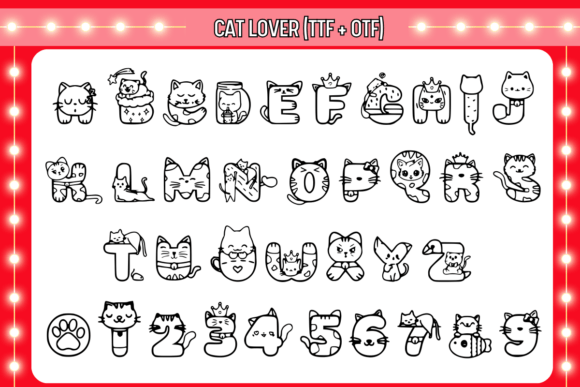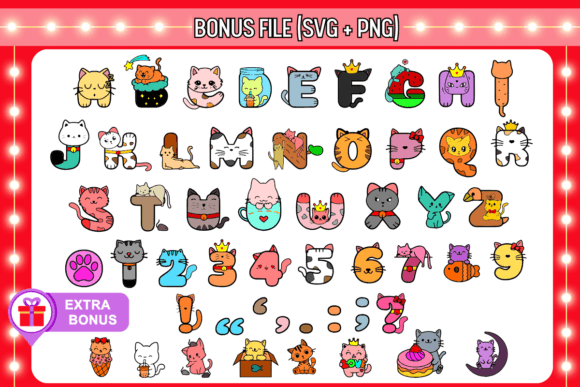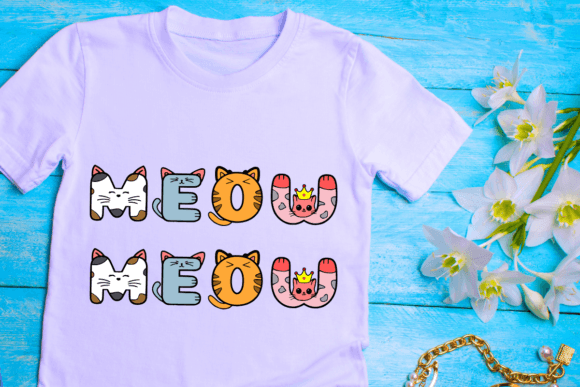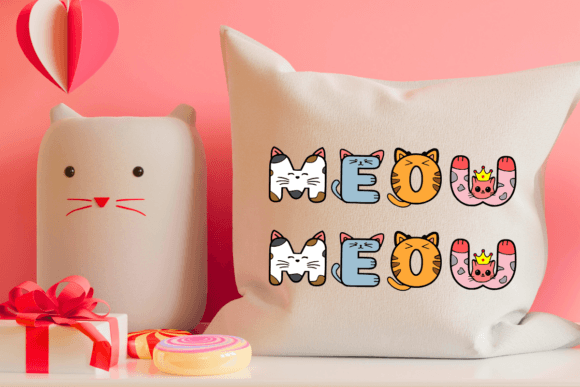
Introducing the Purrfect Typeface: Cat Lover Font
Are you a feline fanatic looking for a unique way to express your love for cats? Look no further than the Cat Lover Font, a playful decorative typeface that is sure to delight. This charming font features creatively shaped letters, each one carefully crafted from cute, tiny cats that will make your heart melt.
What is Cat Lover Font?
Cat Lover Font is a digital typeface designed specifically for cat enthusiasts, crafters, and designers. Each letter of the alphabet is meticulously shaped from adorable cat illustrations, creating a truly one-of-a-kind font that is perfect for a variety of creative projects. Whether you’re designing a logo, crafting a greeting card, or simply adding a personal touch to your digital communications, Cat Lover Font is the purrfect choice.
Key Features of Cat Lover Font
- Playful Design: Each letter is creatively shaped from cute, tiny cats, adding a touch of whimsy and fun to your designs.
- Unique Illustrations: The font features original illustrations of cats, carefully crafted to ensure that every letter is both recognizable and adorable.
- High-Quality Design: The font is designed with high-quality lines and smooth curves, making it perfect for both digital and print applications.
Uses for Cat Lover Font
Cat Lover Font is perfect for a wide range of creative projects, including:
- Stationery and Greeting Cards: Add a personal touch to your cards and stationery with this adorable font.
- Logo Design: Create a unique and memorable logo for your cat-related business or brand.
- Social Media Graphics: Stand out on social media with eye-catching graphics and posts featuring Cat Lover Font.
- Digital Art: Use the font to create stunning digital art pieces featuring your favorite feline friends.
- Crafting and Scrapbooking: Add a touch of personality to your scrapbooking and crafting projects with this fun and playful font.
Why Choose Cat Lover Font?
With so many fonts available, why choose Cat Lover Font? Here are just a few reasons:
- Unique and Exclusive: Cat Lover Font is a one-of-a-kind typeface that will set your designs apart from the rest.
- Fun and Playful: The font’s playful design is sure to bring a smile to the face of any cat lover.
- High-Quality Design: The font is designed with quality and attention to detail, ensuring that your designs look professional and polished.
Tips for Using Cat Lover Font
To get the most out of Cat Lover Font, here are a few tips:
- Experiment with Colors: Try pairing the font with different colors and textures to add depth and interest to your designs.
- Mix and Match: Combine Cat Lover Font with other fonts and design elements to create unique and eye-catching compositions.
- Pay Attention to Legibility: While the font is playful and decorative, make sure it’s still legible and easy to read.
Cat Lover Font is a unique and playful decorative typeface that is perfect for any feline fan. With its creatively shaped letters and adorable cat illustrations, this font is sure to delight cat lovers and designers alike. Whether you’re crafting a greeting card, designing a logo, or simply adding a personal touch to your digital communications, Cat Lover Font is the purrfect choice. So why wait? Download Cat Lover Font today and start creating your own feline-inspired masterpieces!